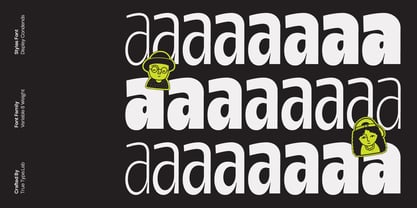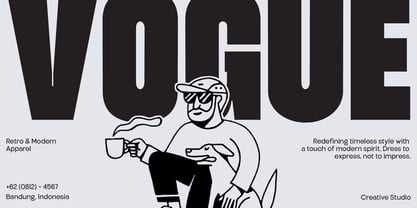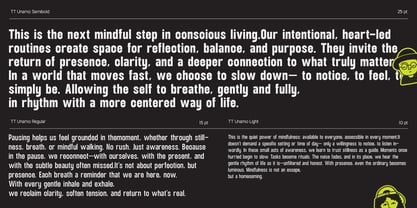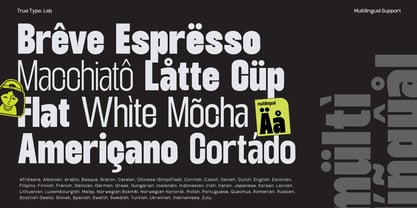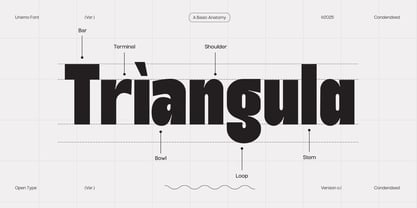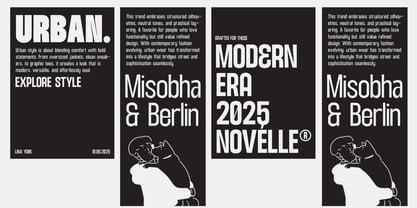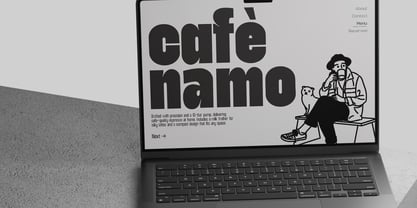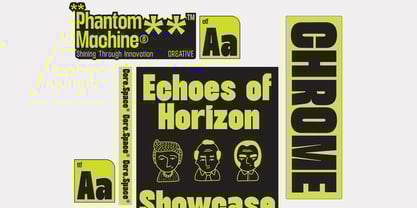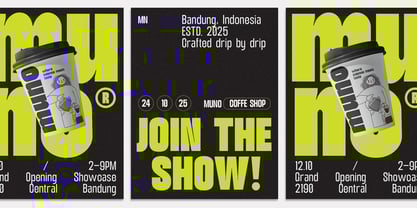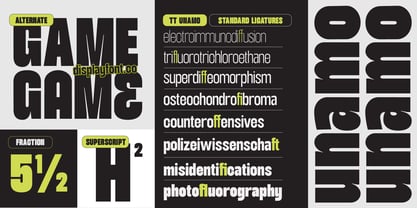
TRT Unamo
by True Type Lab
The TRT Unamo Font Family was designed by Yusilo Oktaprima Ardani and published by True Type Lab. TRT Unamo contains 8 styles and family package options.
TRT Unamo is a bold and modern display sans condensed font family designed to command attention and deliver messages with precision. With its clean lines, narrow proportions, and strong geometric foundation, it’s perfect for projects that demand impactful typography without sacrificing clarity.
Engineered for versatility, TRT Unamo excels in posters, headlines, editorial titles, branding, packaging, and digital interfaces. Its condensed structure allows more text in limited spaces while maintaining excellent legibility and visual balance.
TRT Unamo offers a refined yet assertive personality, making it ideal for contemporary brands, sports campaigns, fashion editorials, and dynamic presentations. Whether you need a confident headline or a stylish typographic element, TRT Unamo ensures your message stands out.